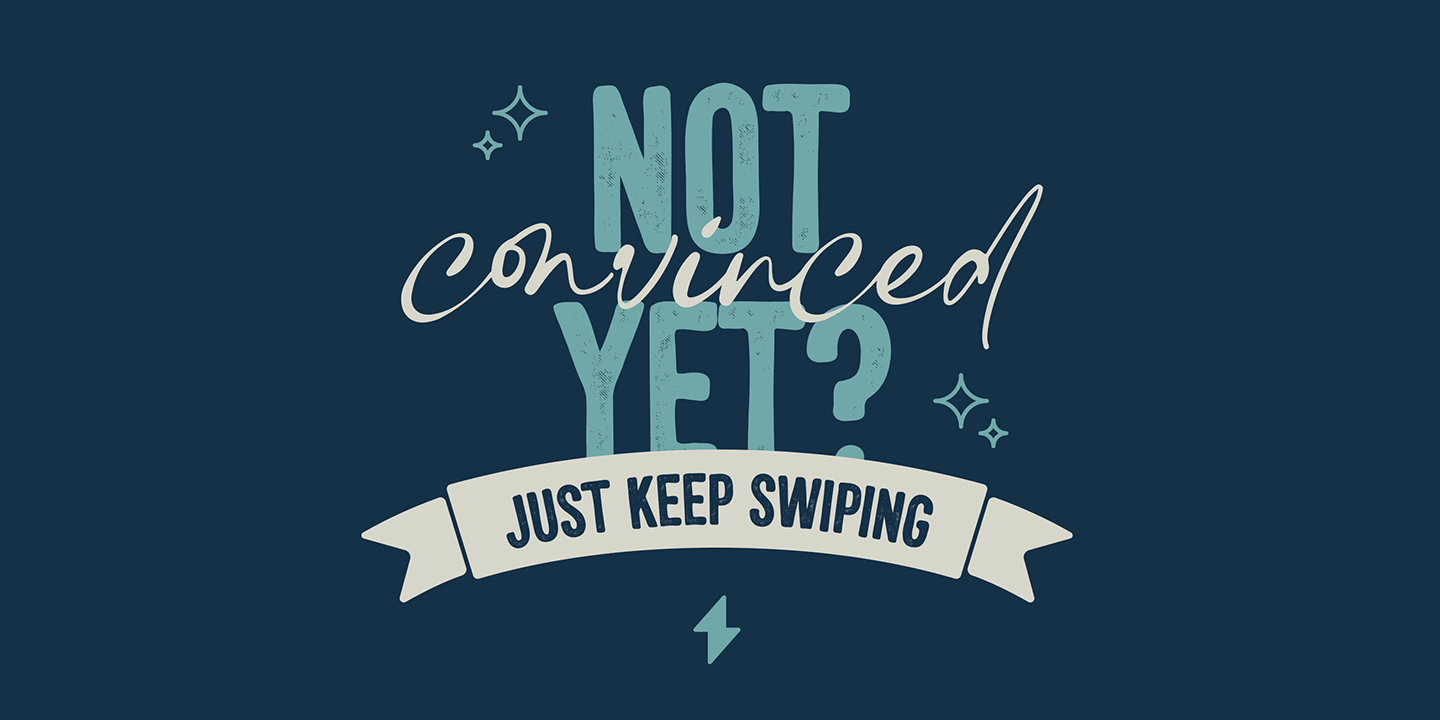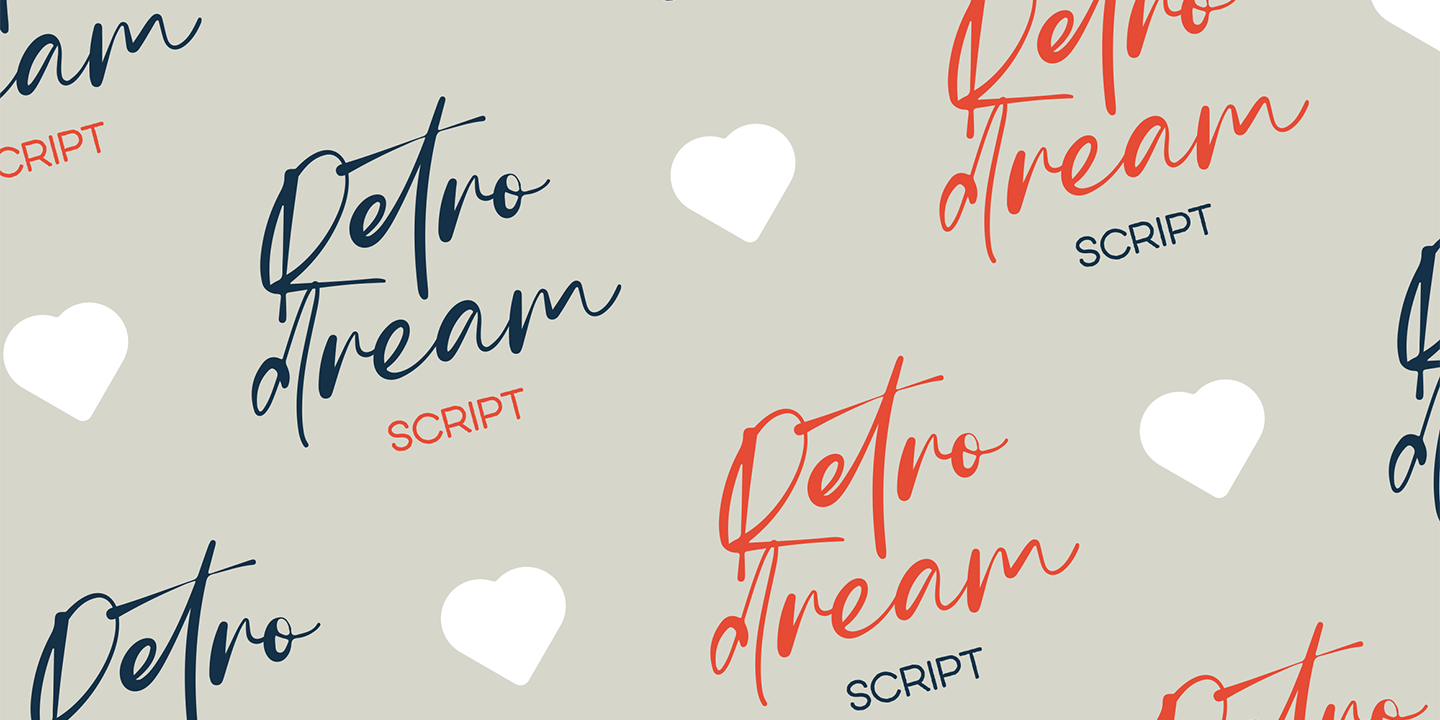
About Retro Dream
Introducing Retro Dream – Versatile Typeface – 29 fonts Retro Dream is a charmingly versatile typeface collection that beautifully captures the essence of nostalgia and creativity. It encompasses a rich array of 18 serif fonts, spanning 9 distinct…